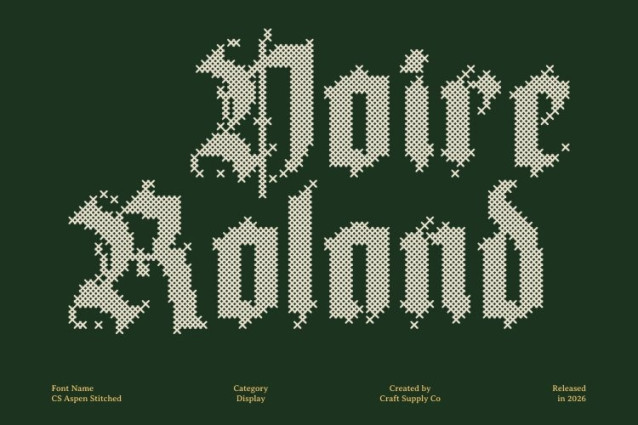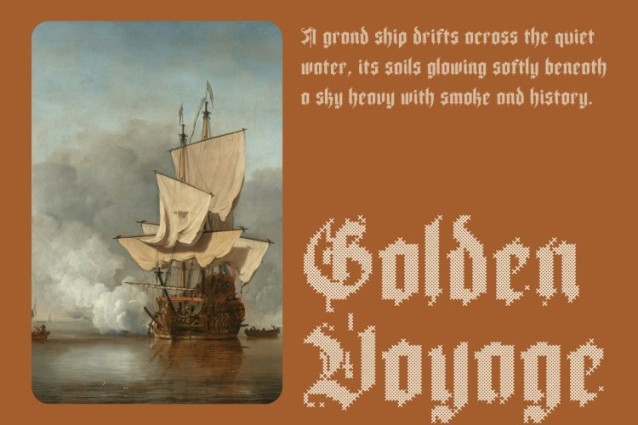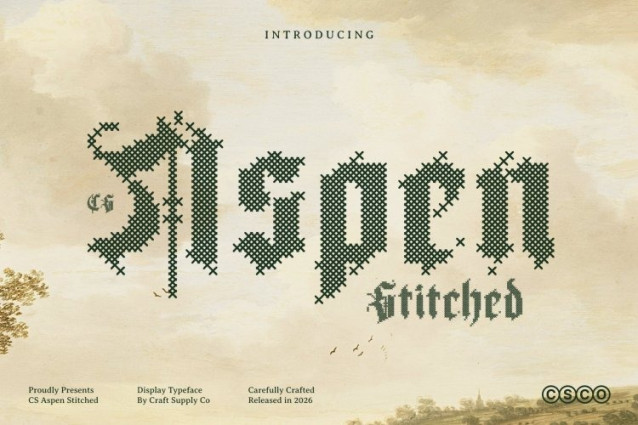
CS Aspen Stitched Font
CS Aspen Stitched Font – This takes the timeless elegance of Blackletter also called “Gothic” or “Old English” and adds a stitched, embroidered texture. Each letter is enhanced with a cross-shaped stitched pattern, creating a tactile, handcrafted feel while preserving the font’s ornate, historical character. The thick, sharp lines and intricate details are now accentuated with a warm, personal touch, evoking nostalgia alongside classic sophistication.
Dramatic and Enigmatic Aesthetic
The stitched texture amplifies this font’s dramatic quality, giving its bold, angular strokes a layered, embossed appearance. This adds depth and intrigue, emphasizing the font’s mysterious and historical charm. Perfect for projects that demand a strong visual presence, it draws attention while maintaining elegance and gravitas.
Ideal for Elegant and Historical Projects
This is well-suited for invitations, theater posters, event branding, or any design that calls for historical sophistication with a handcrafted touch. The combination of traditional Blackletter forms and stitched detailing ensures your projects exude elegance, authority, and a unique artistic flair, leaving a lasting impression on viewers.